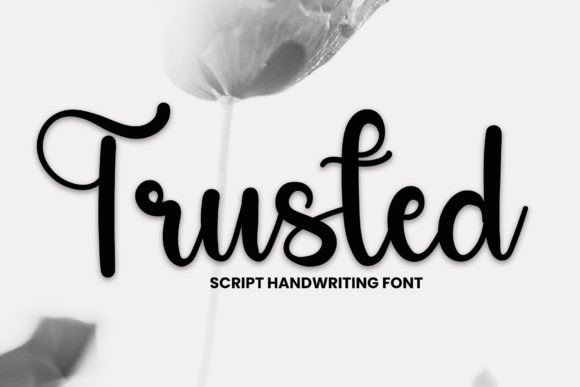
Introducing Trusted Font - the epitome of elegance and sophistication in the world of script fonts. Created by the renowned Bintang Studio, this font is the perfect choice for those seeking the best font for magazine design. Allow yourself to be captivated by its timeless classic calligraphy, as it effortlessly adds a touch of modernity to your projects.
With its impeccable form and contemporary atmosphere, Trusted Font is a true masterpiece that will elevate your designs to new heights. Its stylish handwritten strokes exude confidence and creativity, making it an ideal companion for any creative endeavor. Whether you're designing a magazine layout, crafting a logo, or even working on a personal project, Trusted Font will be your trusted companion throughout the process.
What sets Trusted Font apart is its balanced and varied nature. Each letter has been meticulously crafted to ensure harmonious flow and perfect readability. Every stroke is carefully placed, resulting in a seamless and visually appealing composition. The fluidity of this font will effortlessly draw the eye and leave a lasting impression on your audience, making it an invaluable asset for any designer.
But it's not just about aesthetics - Trusted Font is designed to enhance the beauty of your projects. Its versatility knows no bounds, allowing you to effortlessly adapt it to suit your vision. From bold headlines to delicate captions, this font adapts flawlessly to any context, adding that extra touch of elegance and professionalism.
When you choose Trusted Font, you're not just investing in a font - you're investing in your creative journey. Its contemporary and captivating nature will inspire you to push boundaries, explore new possibilities, and create remarkable designs that leave a lasting impact. Let your creativity soar as you embrace the endless possibilities that Trusted Font brings to the table.
In conclusion, Trusted Font is the ultimate choice for those in search of the best font for magazine design. Its impeccable form, contemporary atmosphere, and balanced nature make it a go-to option for designers looking to elevate their projects. Let Trusted Font be your creative companion and witness the transformation it brings to your designs. Don't miss out on this opportunity to add a touch of elegance and sophistication to your work.